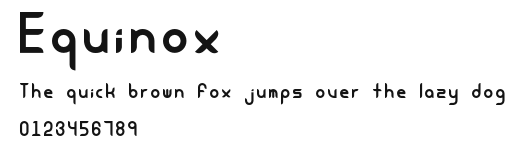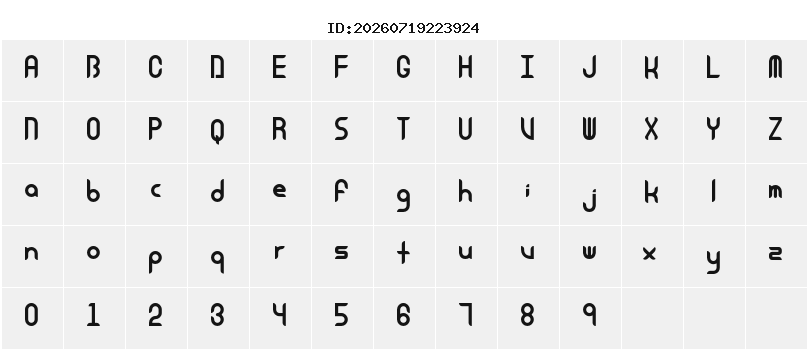
Equinox Preview
• Font Name: Equinox
• Font ID: FontForge 2.0 : Equinox : 23-10-2010
• Full Font Name: Equinox
• PostScript Name: Equinox
• Character Count: 95
About Equinox.otf
Equinox.otf is a modern, elegant sans-serif font designed for ultimate readability and visual harmony. Perfect for branding, headlines, web design, and print materials.